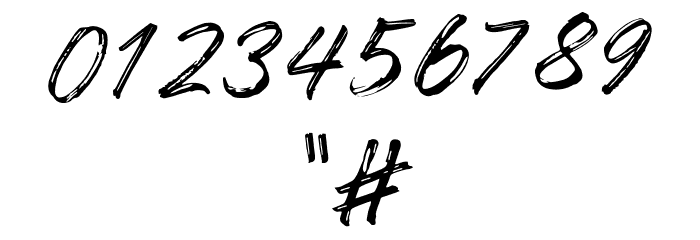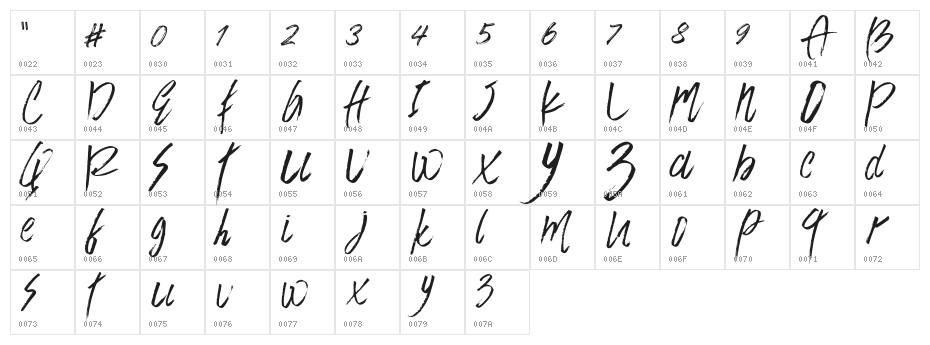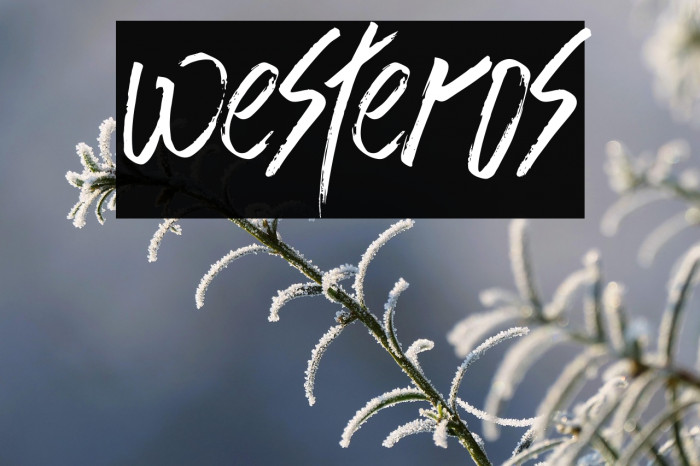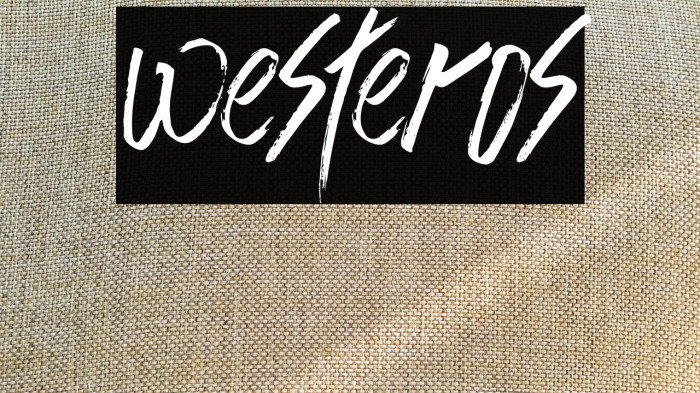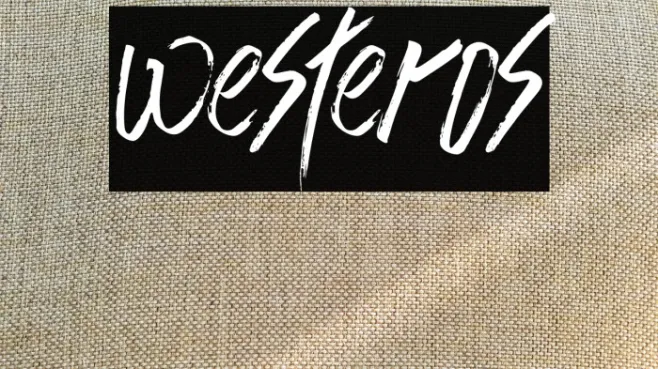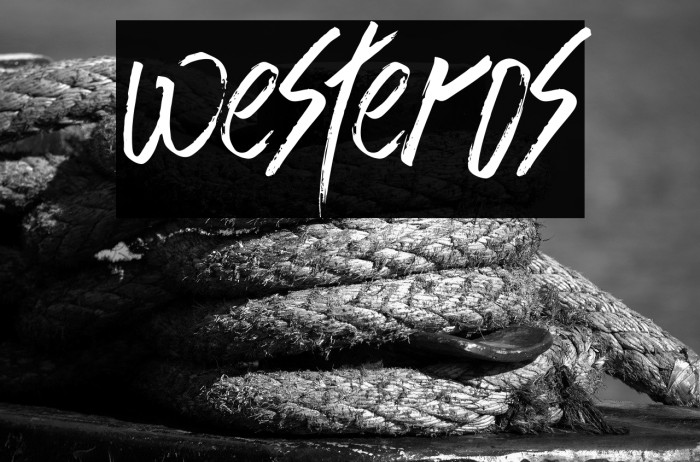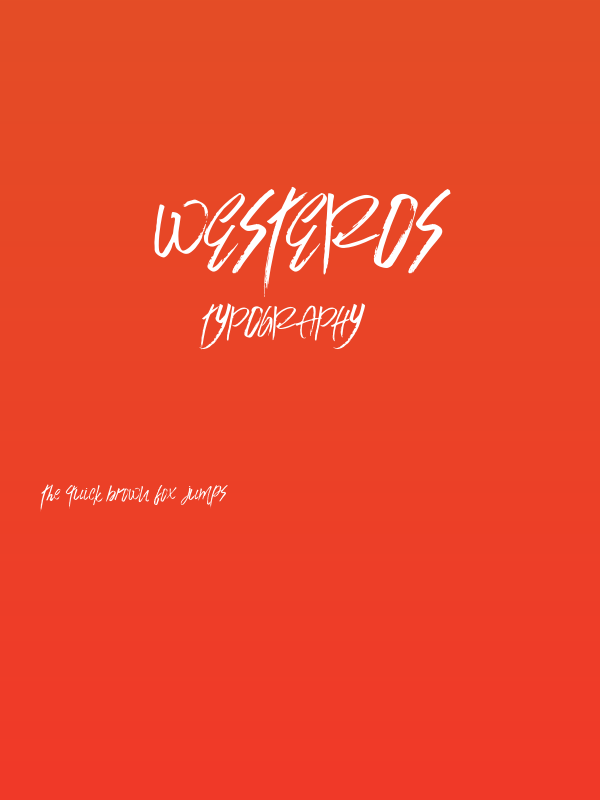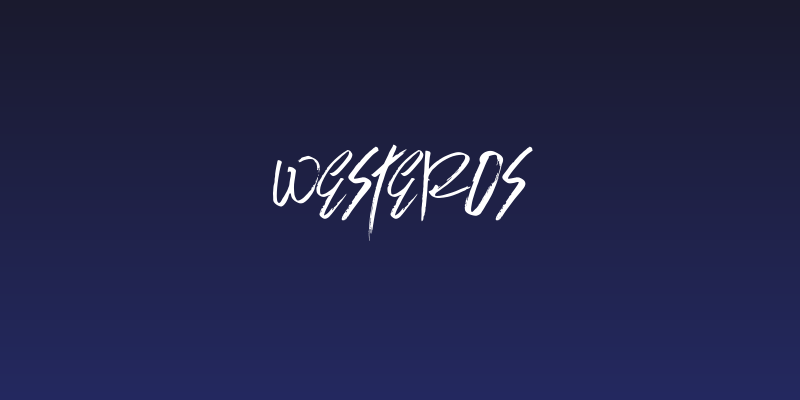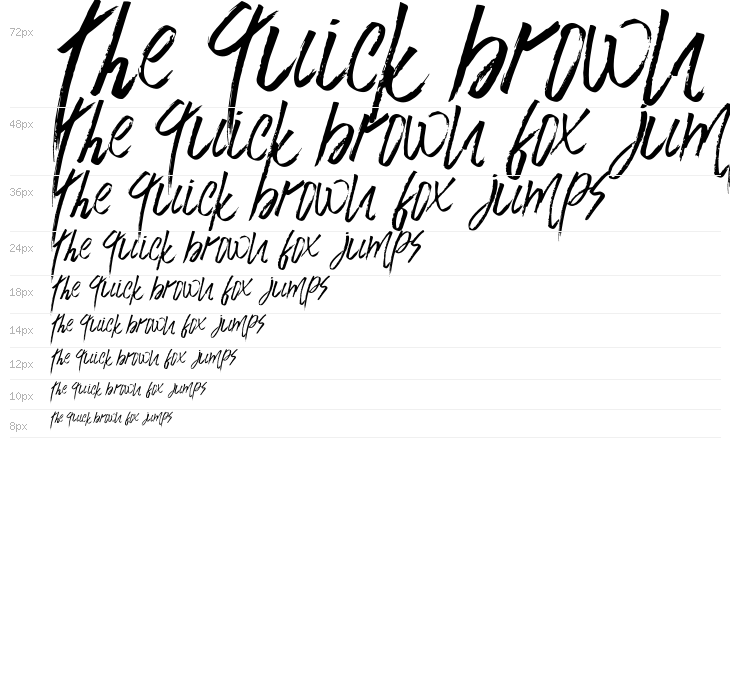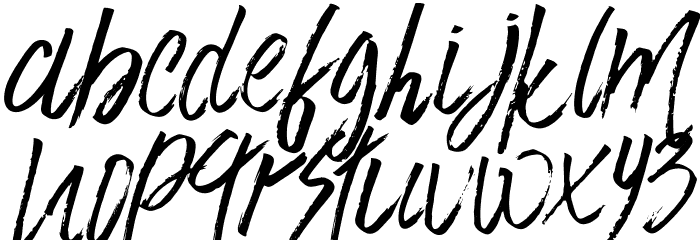
westeros Font
westeros Description
This font exhibits a dynamic and expressive style, characterized by its brush-like strokes and energetic flow. The letters are crafted with a sense of movement, giving them a lively and artistic appearance. The uppercase and lowercase letters maintain a consistent style, with varying stroke widths that add to the font's vibrant personality. The numbers and special characters are equally expressive, maintaining the same brush-like quality. This font is ideal for projects that require a bold and artistic touch, such as posters, branding, and creative designs.
| Overall Style | Artistic, Expressive |
| Use Case | Headlines, Logos, Creative Designs |
| Proposed Projects | Ideal for posters, branding, artistic projects, and creative designs. |